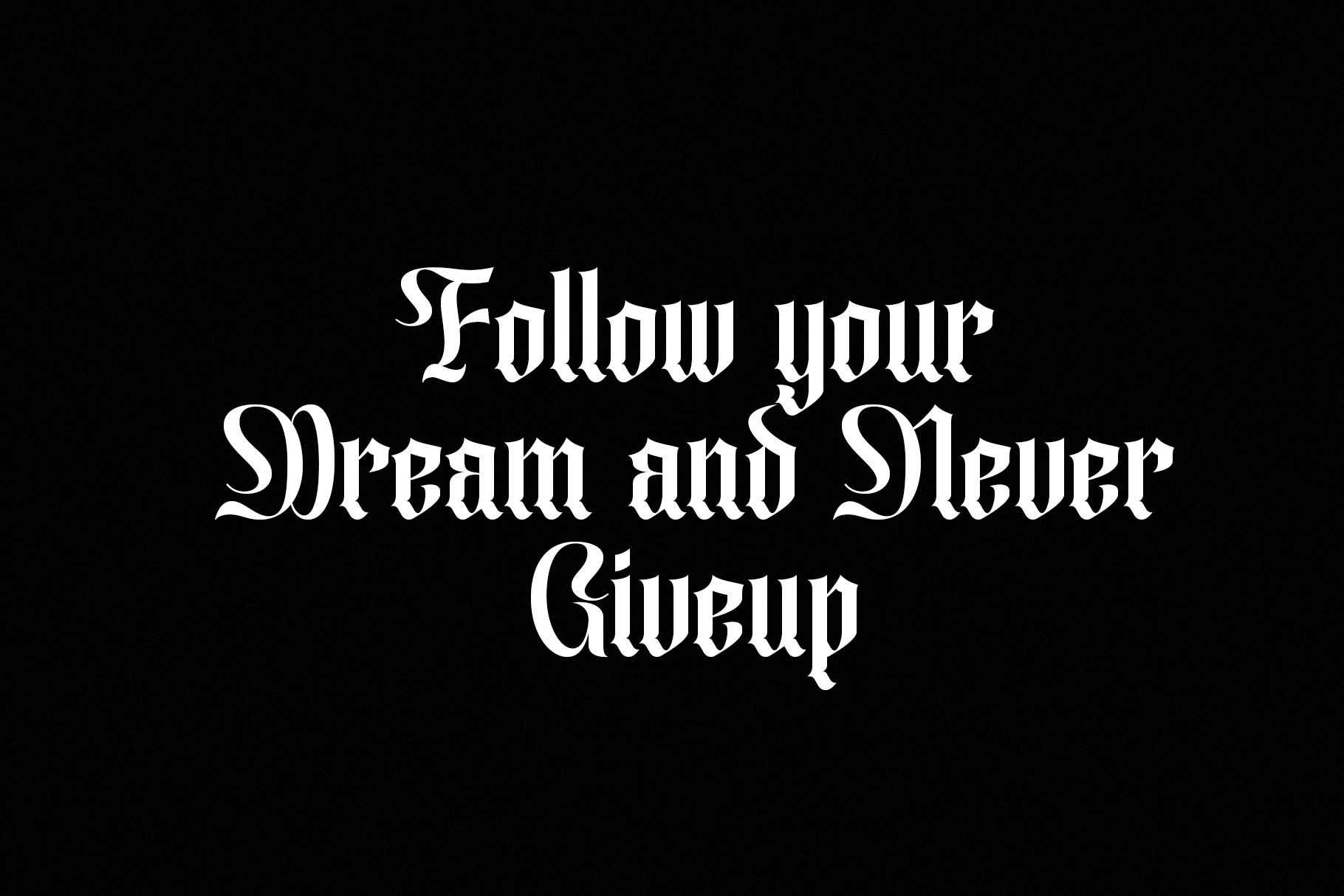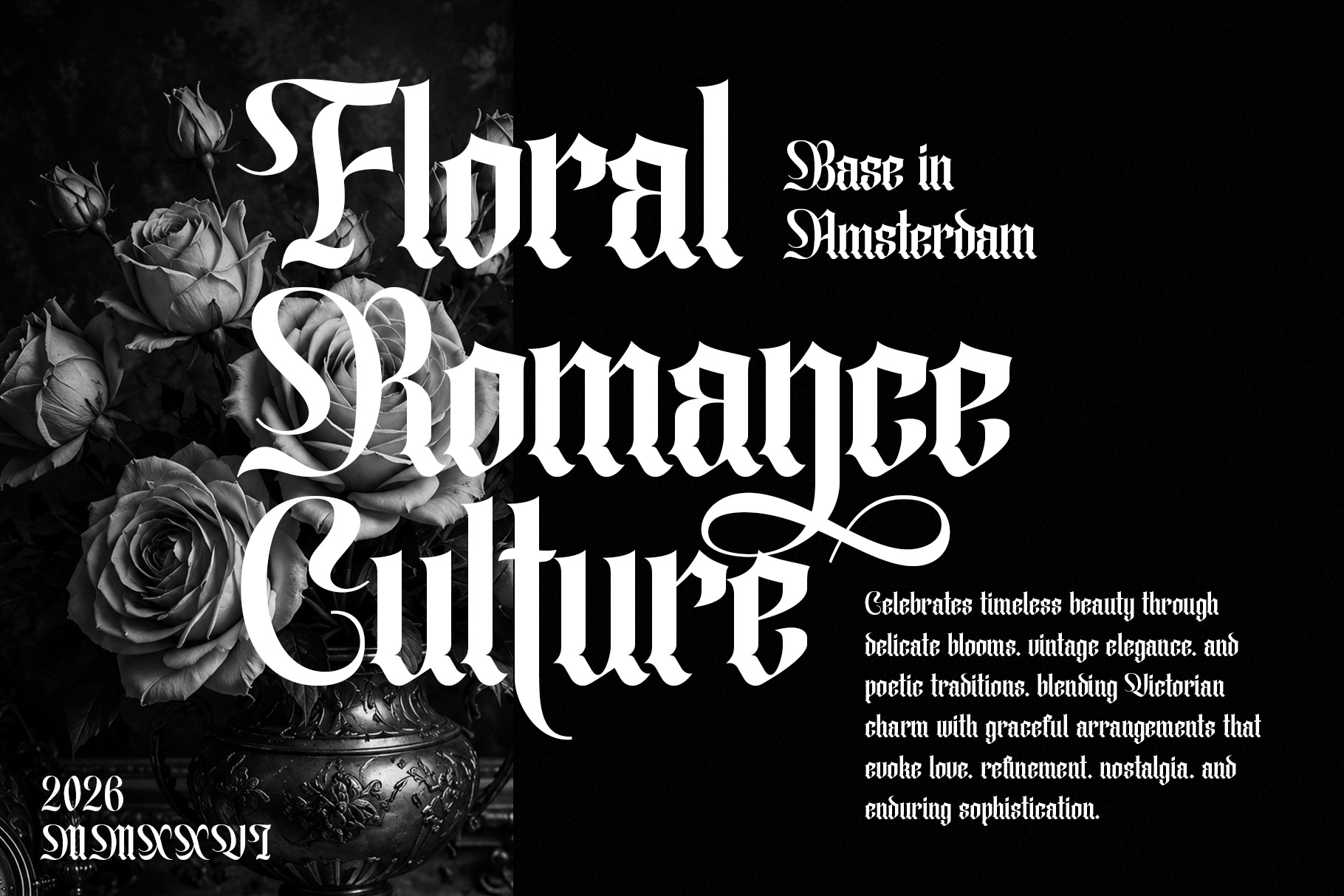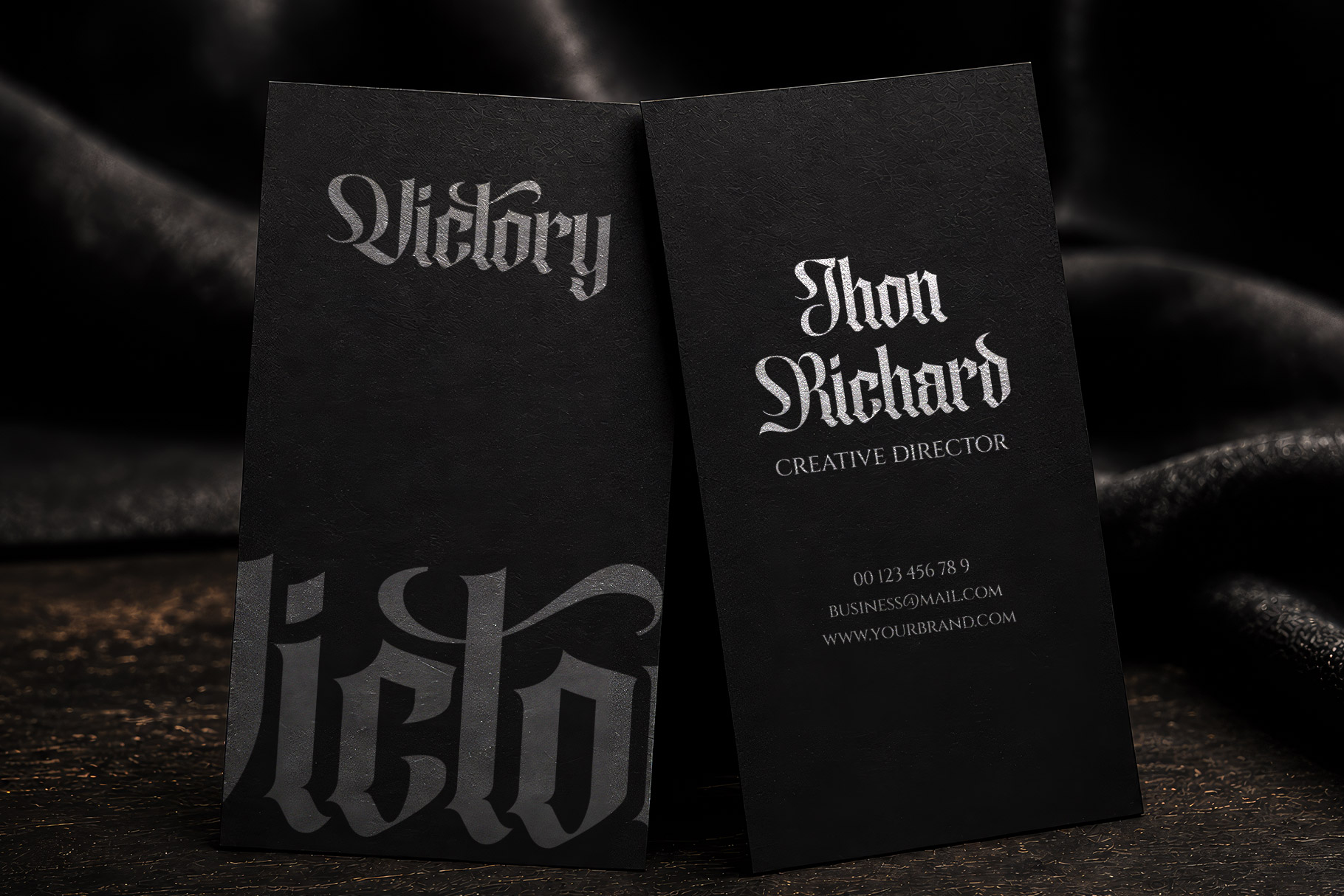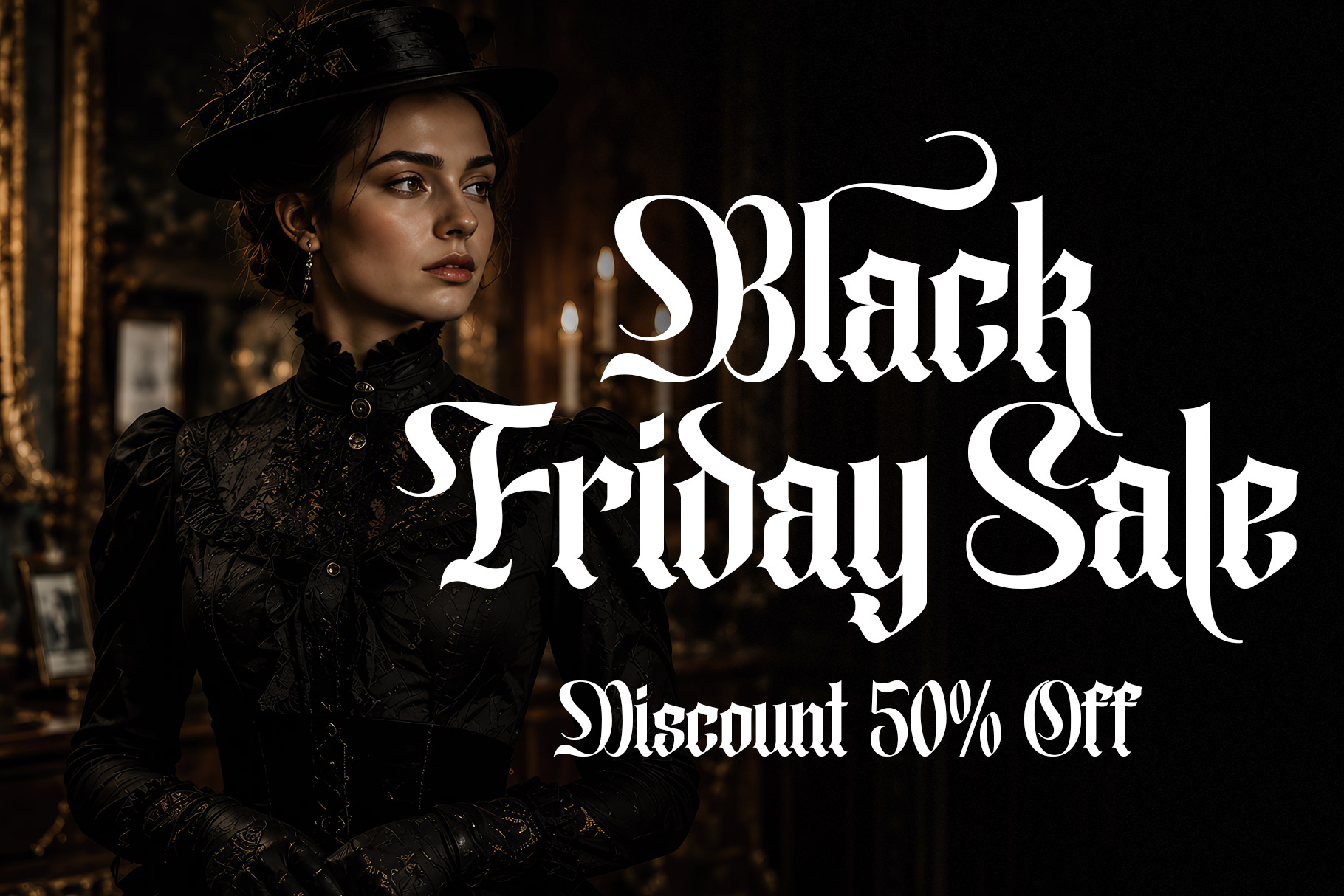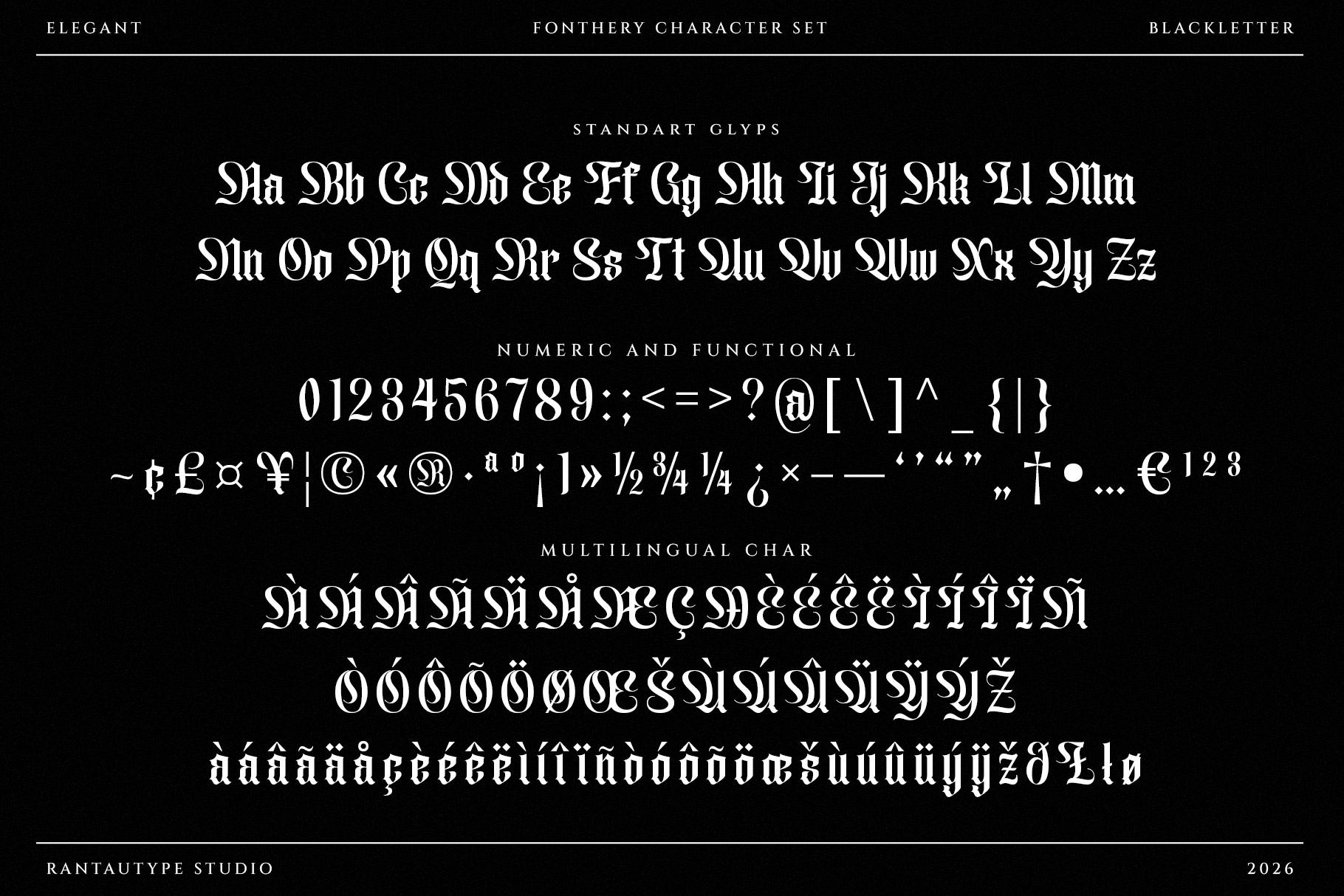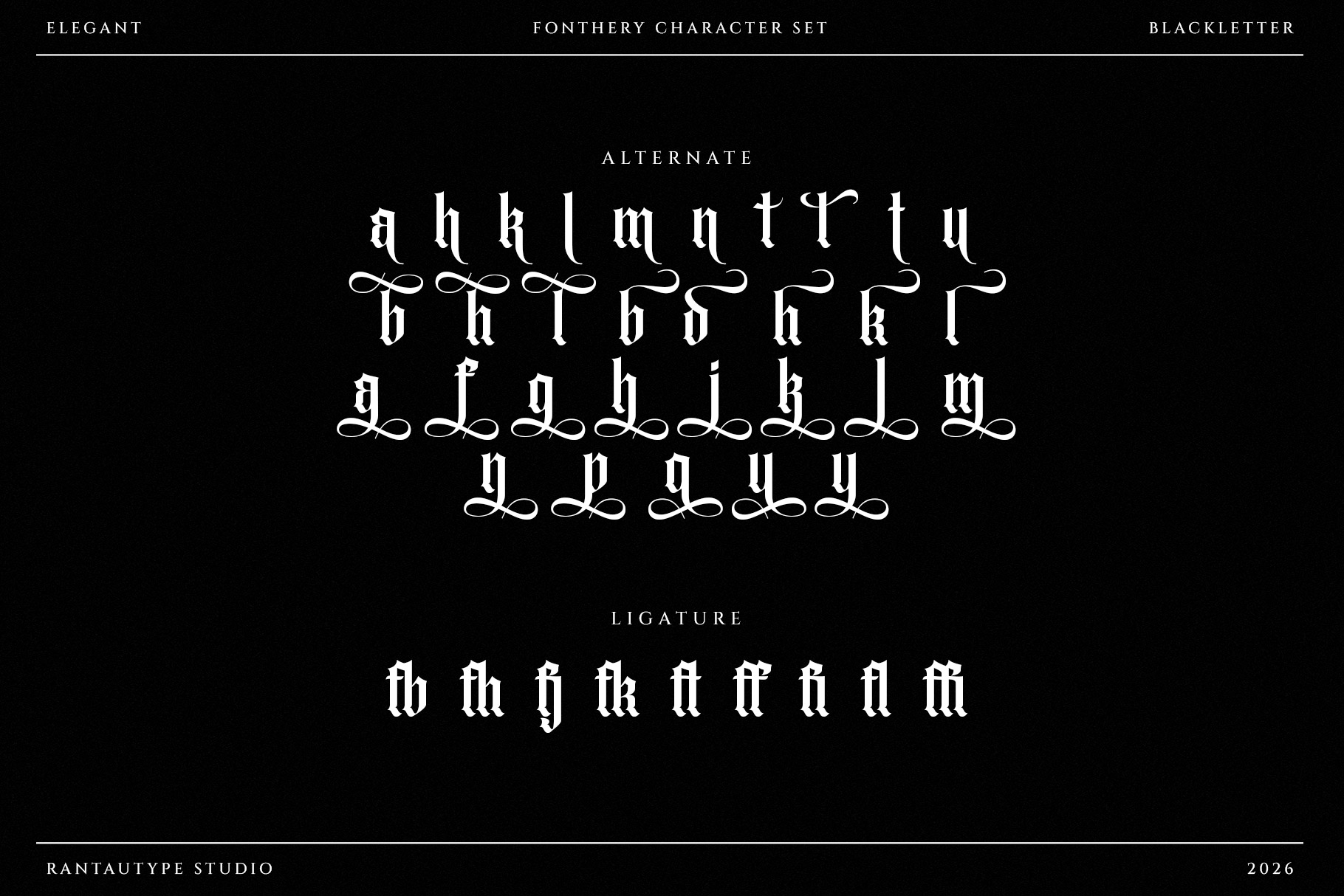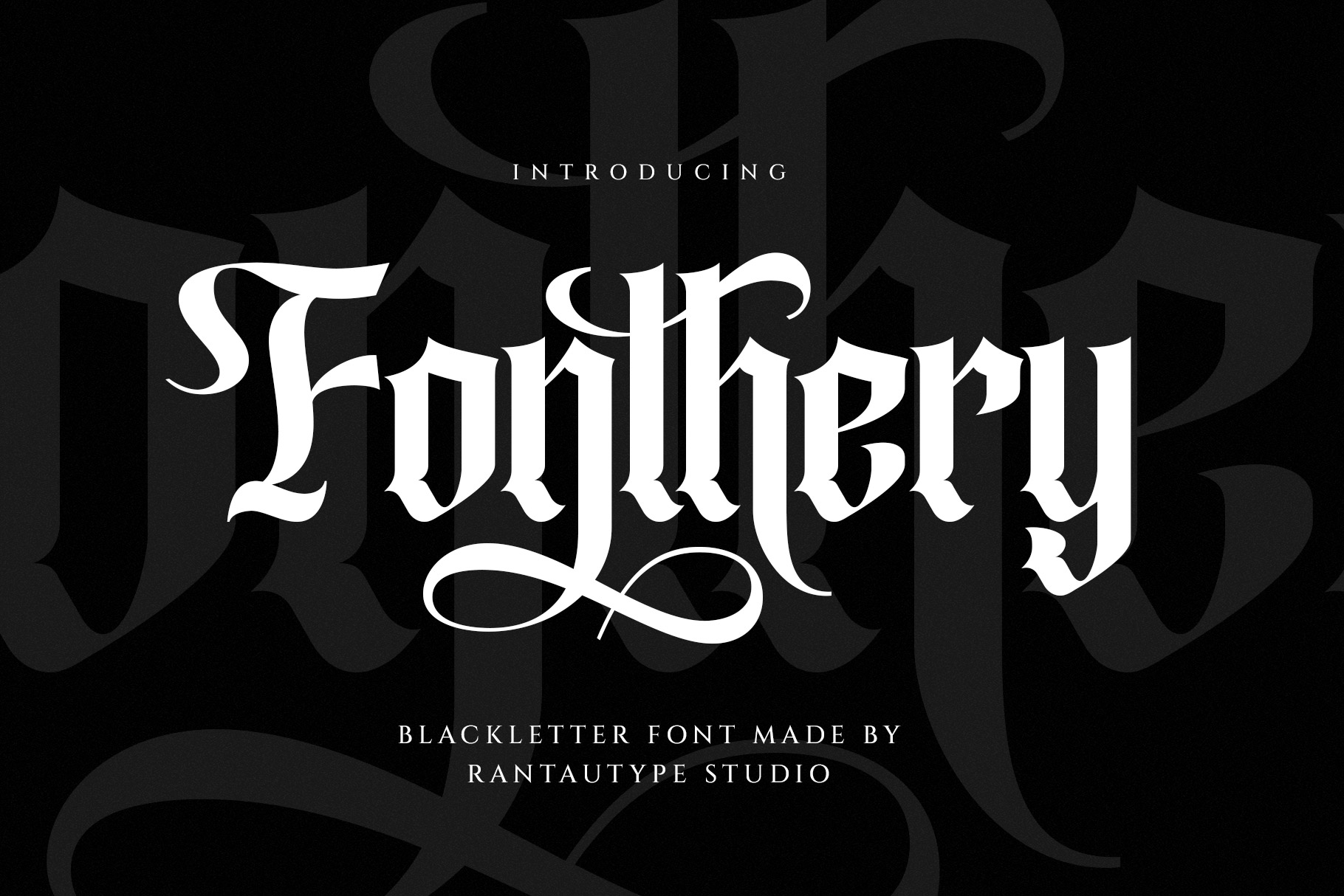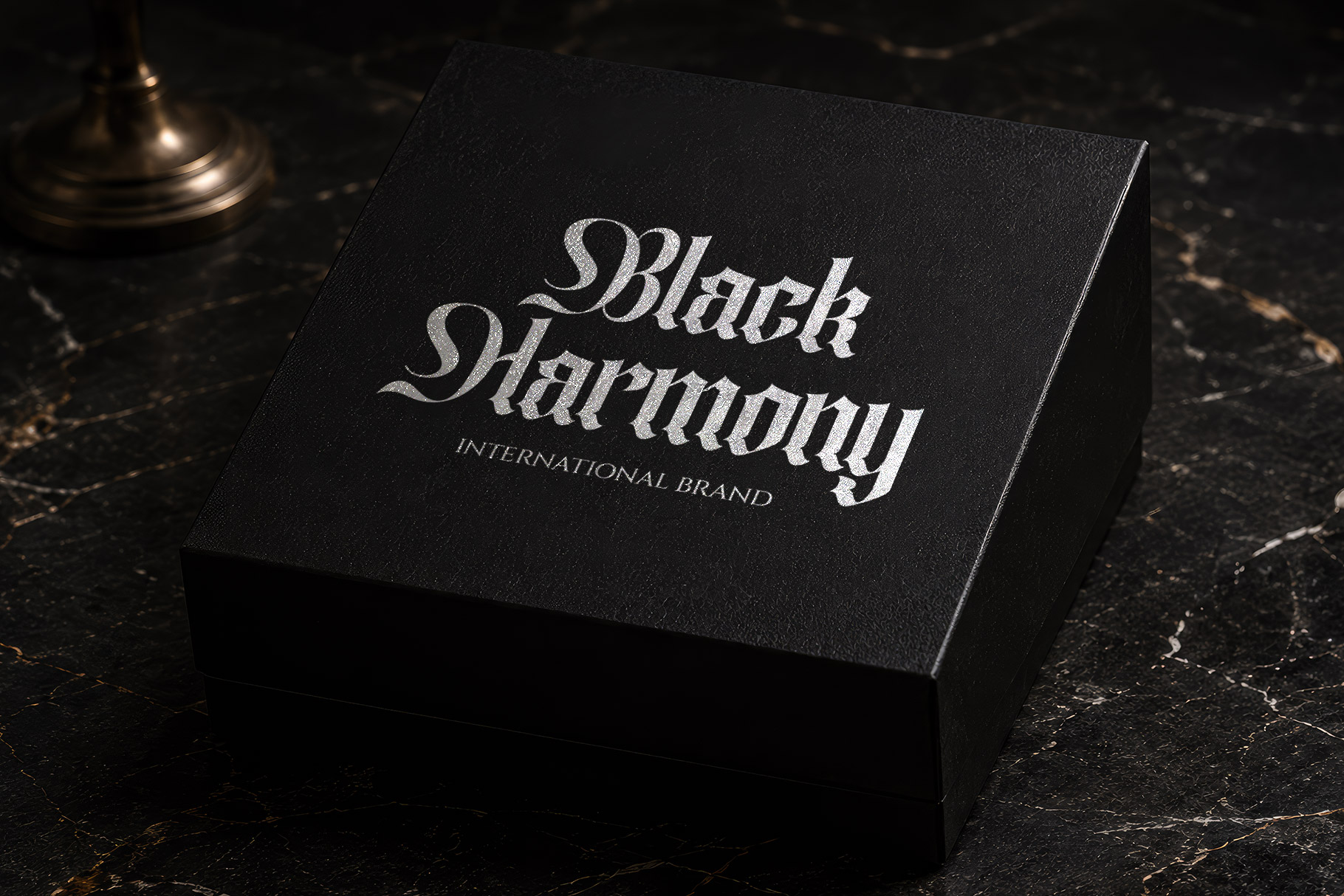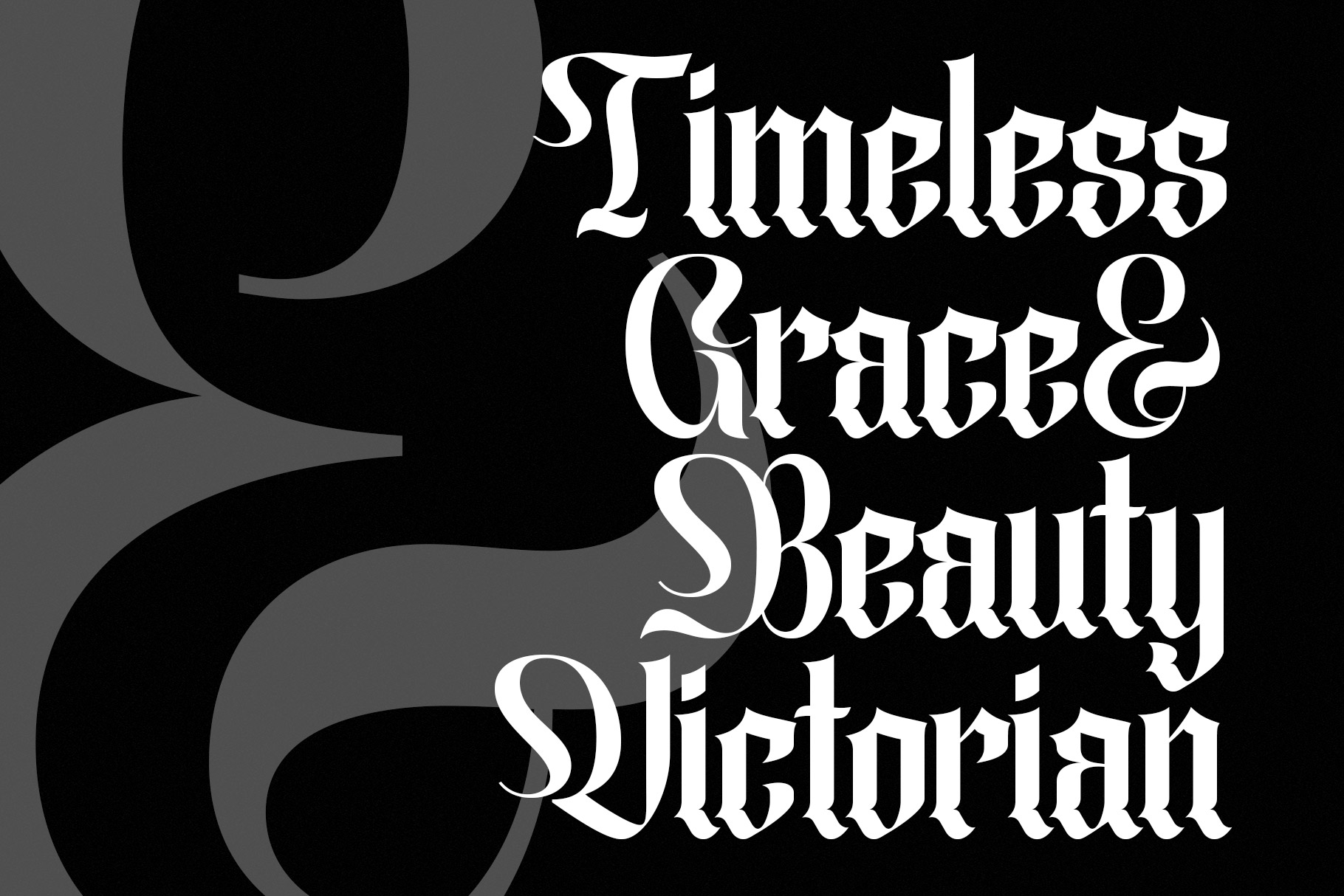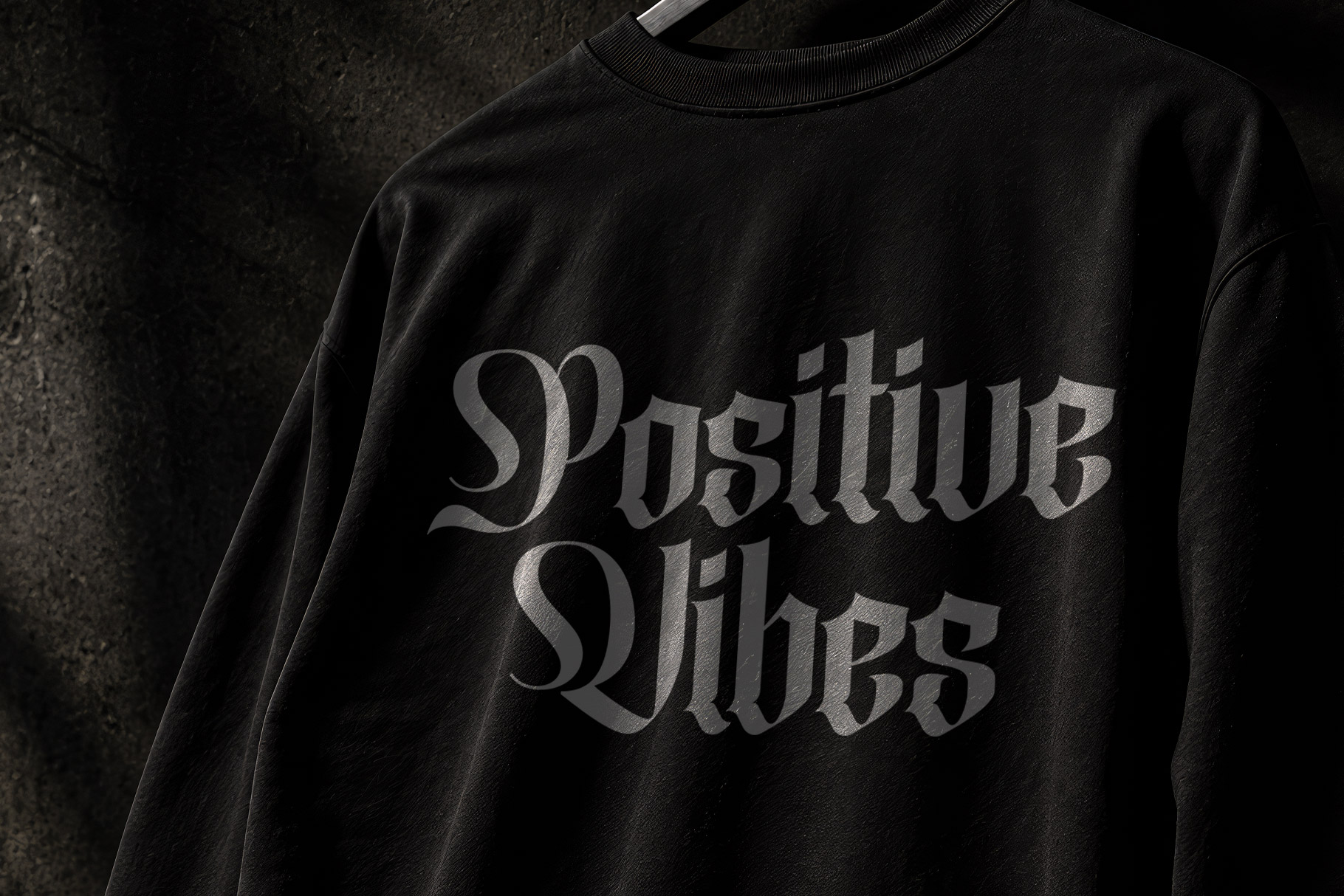
Fonthery is blackletter display typeface that combines medieval Gothic character with dramatic ornamental elegance. Fonthery is perfectly choice for any creative endeavor, creating, modern, lifestyle design such as logotype, title, cover, branding, invitations, wedding designs, display and magazine, social media posts, advertisements, printed quotes, product packaging, corporate brand, product designs, labels, photography, watermarks, special events and any other project with elegant touch.
Fonthery is Blackletter Font